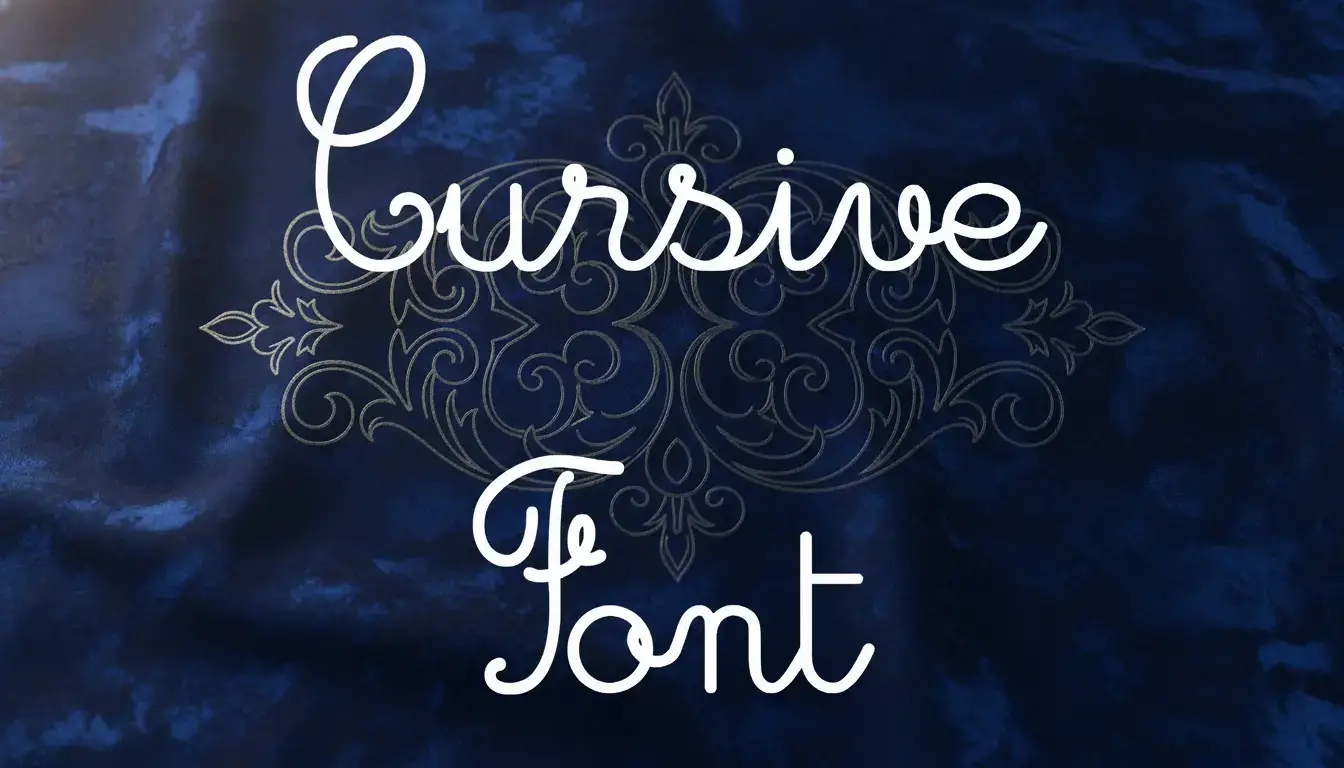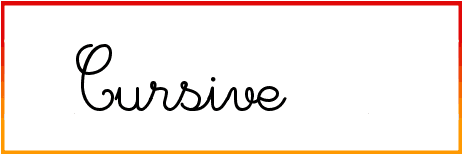
Cursive Font
Cursive Font Preview
Cursive
Cursive is a script font. Its flowing, pen-made letters give names and short phrases a personal, polished look. You can download it for free and test it with your own words in the preview above.
What You Can Type With Cursive
You get every letter from A to Z in both cases and all the numbers from 0 to 9, which means Cursive can handle full sentences, dates and prices. Common punctuation such as &, !, ? and @ is included as well. It also has the accented letters you need for French.
Where Cursive Works Best
Think of Cursive for wedding invitations, logos and signature-style headings. Script fonts read best in short bursts, so keep it to names, titles and one-line quotes. Skip all caps: script capitals are drawn to start a word, not to fill one.
Does Cursive support accented letters?
Yes. Cursive includes the accented letters needed for French, so it works for more than just English.